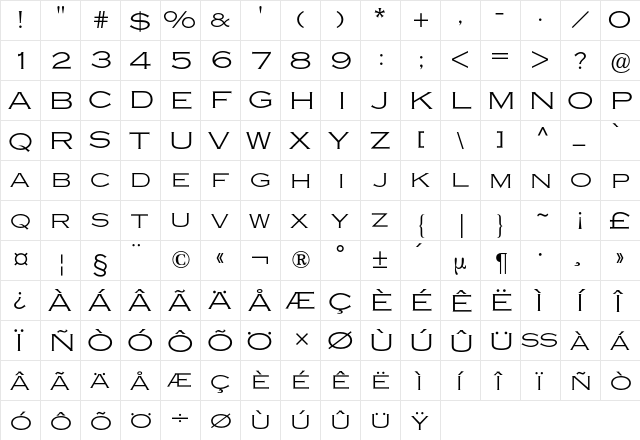
Copperplate BQ Regular
Design Context for Copperplate BQ Typeface
Copperplate BQ offers clean, dependable letterforms without strong stylistic allegiance, making it a practical choice for designers who need flexibility.